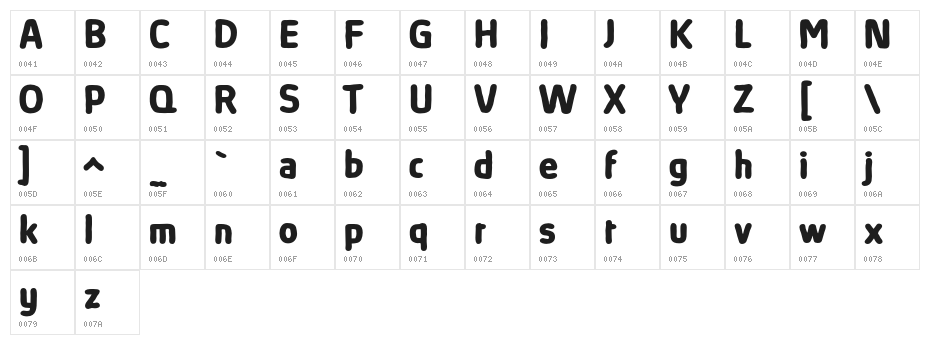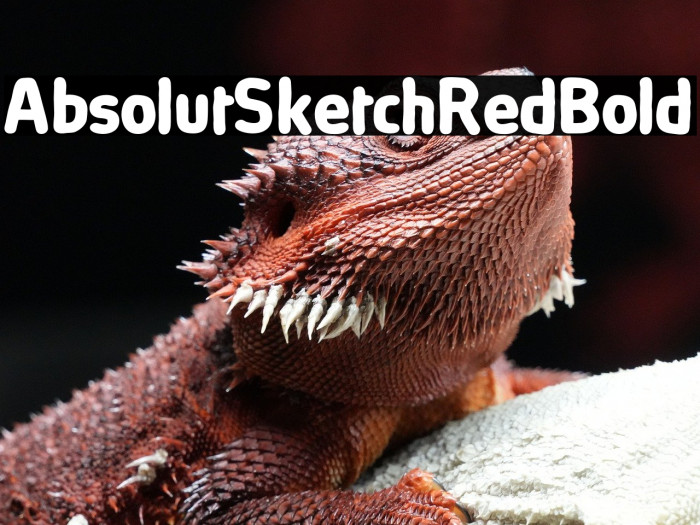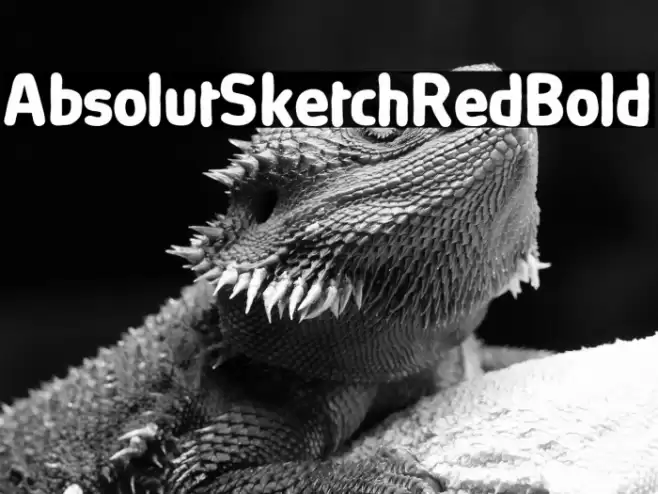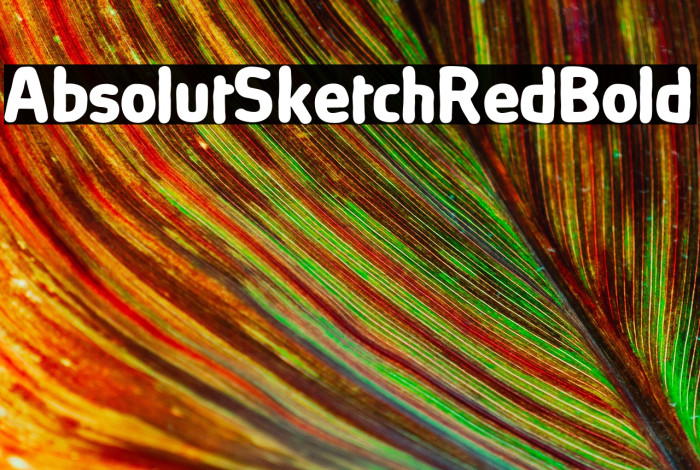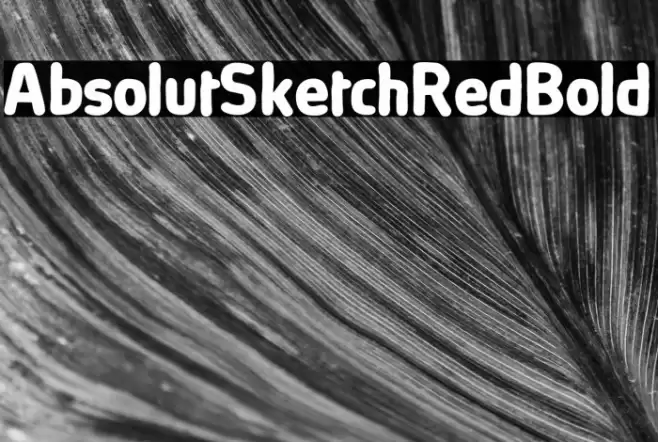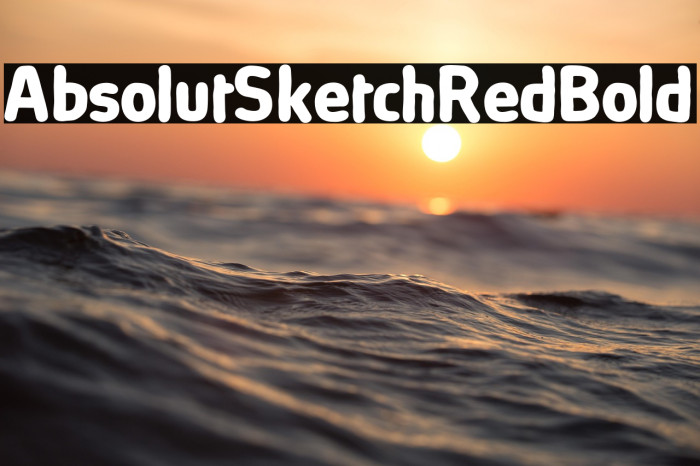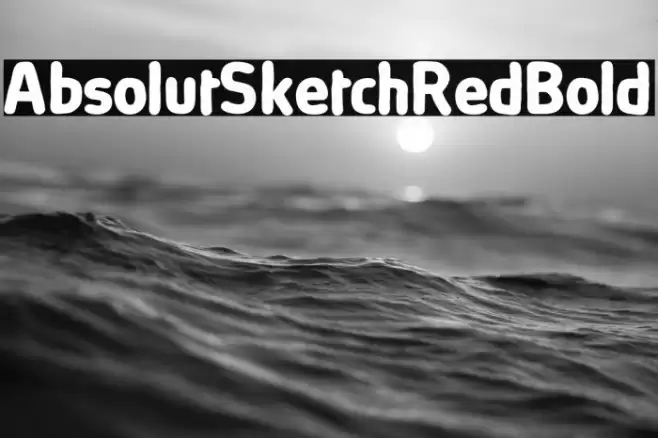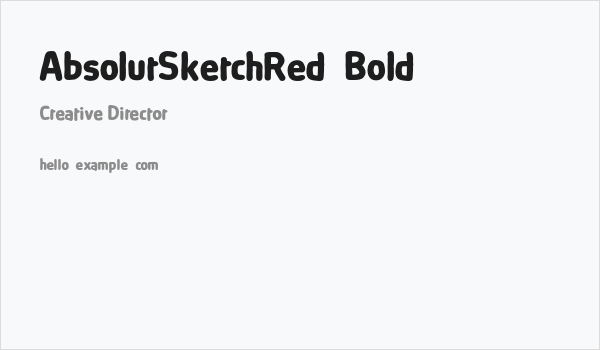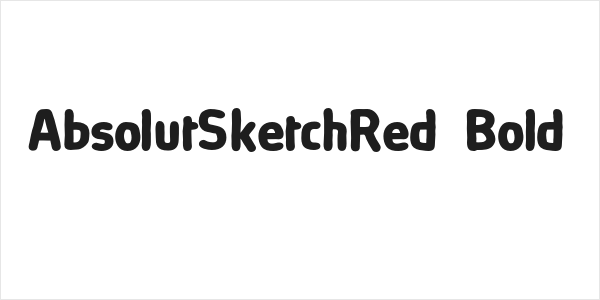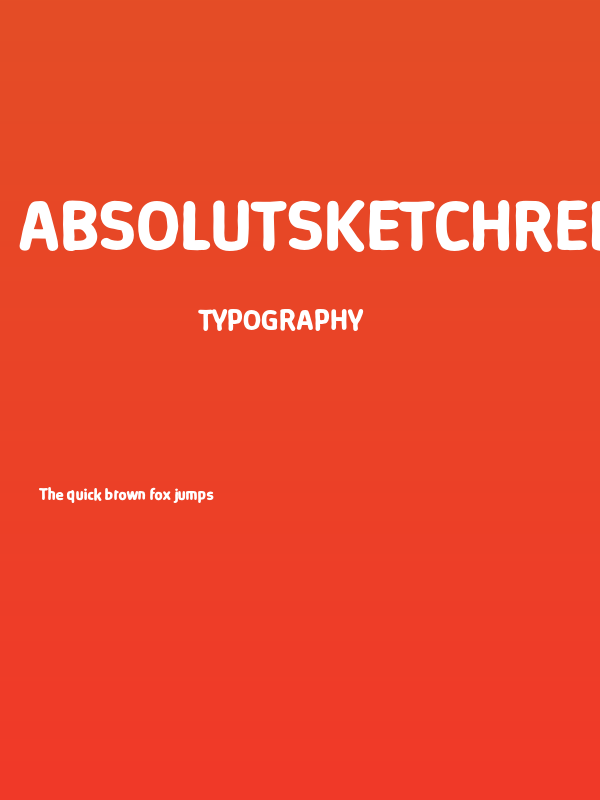
AbsolutSketchRed-Bold Font
AbsolutSketchRed-Bold Description
This font features a playful and bold design with rounded edges and a hand-drawn appearance. The characters are thick and have a slightly uneven stroke, giving them a casual and approachable feel. The uppercase and lowercase letters maintain a consistent style, with a slight variation in the height and width that adds to the font's charm. The numbers and special characters are equally bold and maintain the same playful aesthetic. This font is perfect for projects that require a friendly and informal touch.
| Proposed Projects | Ideal for children's books, playful branding, casual invitations, and creative posters. |